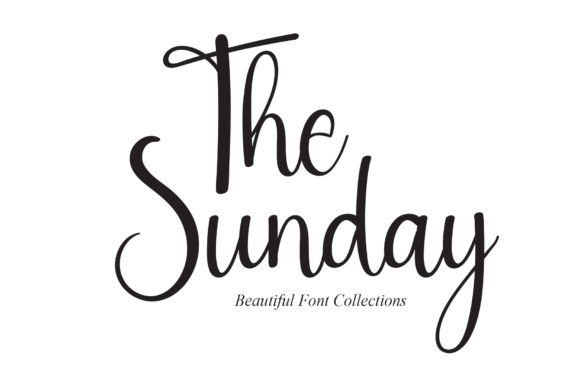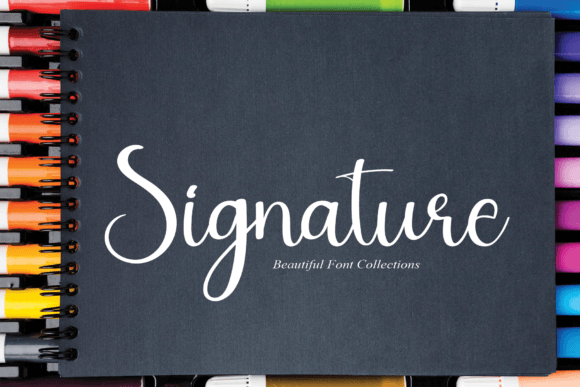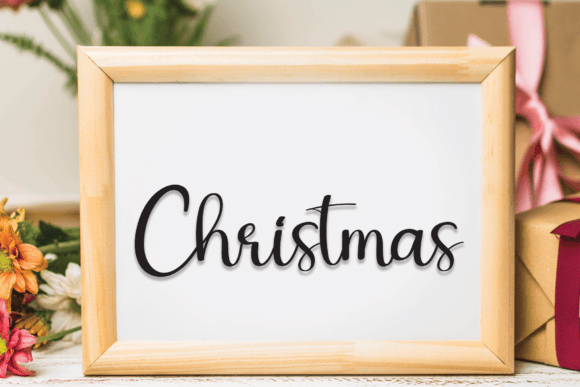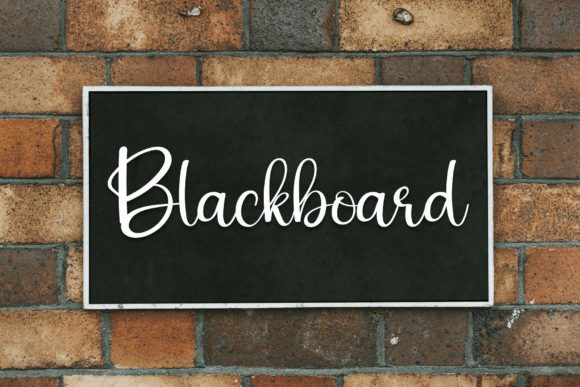
The Sunday Font
The Sunday font is a beautifully crafted handwritten script that adds elegance and warmth to any creative project. This latest style font is ideal for a wide range of uses including wall displays, wedding invitations, social media post logos, advertisements, product packaging, product designs, labels, photography, watermarks, invitations, stationery, and more.
With its smooth, flowing strokes, the Sunday font brings a personalized touch to your designs, making them feel genuine and heartfelt. Whether you’re creating eye-catching wedding invitations or branding materials, this font will enhance your projects with its unique handwritten flair.